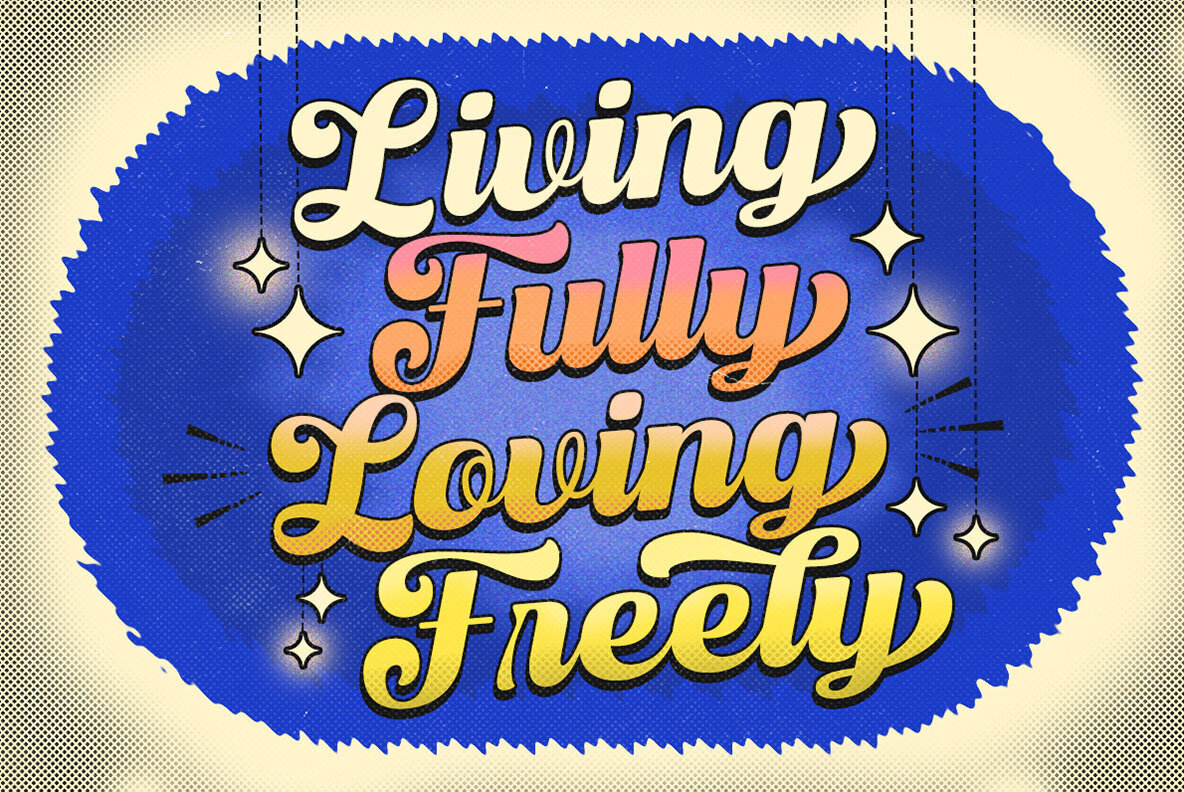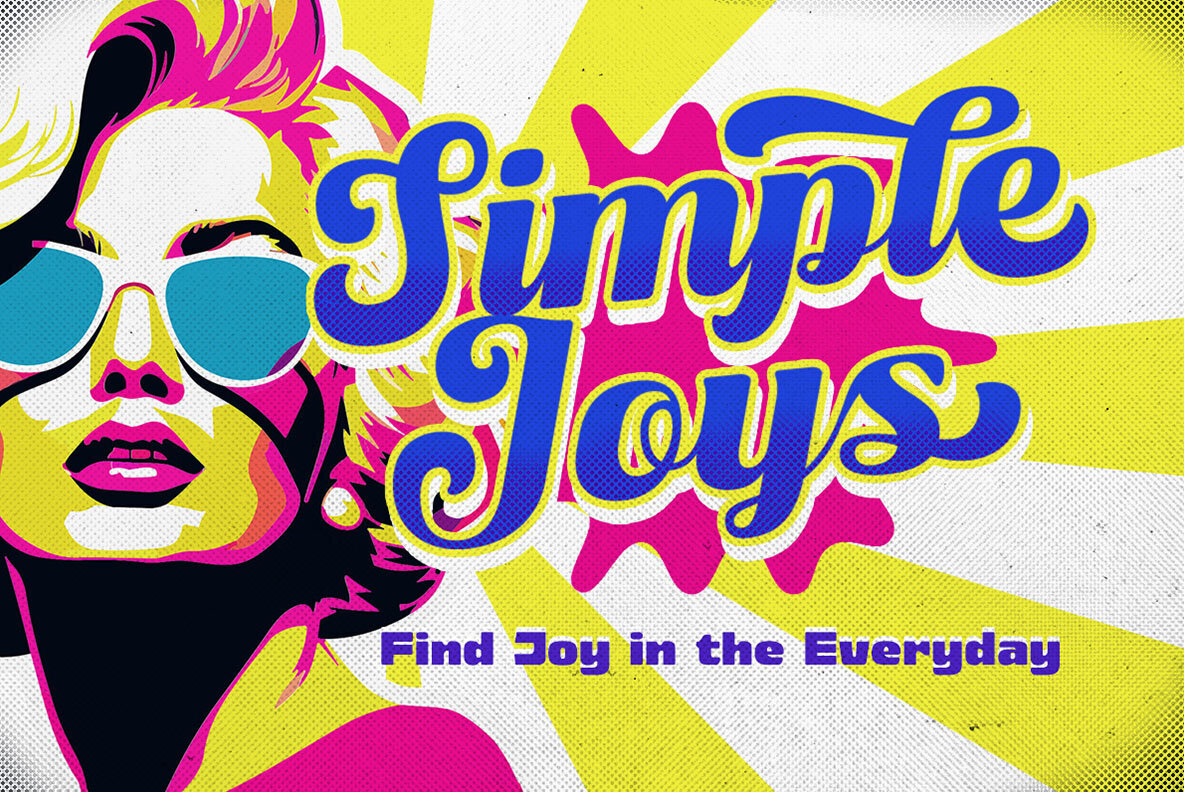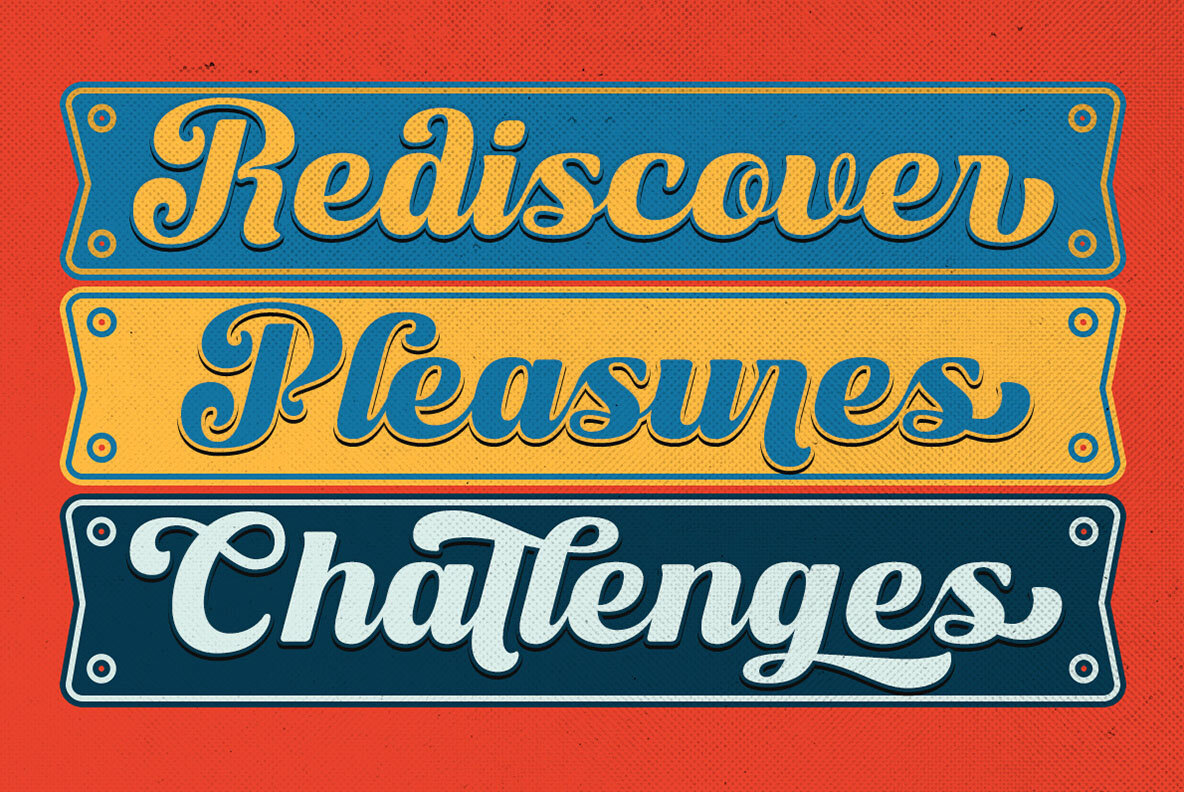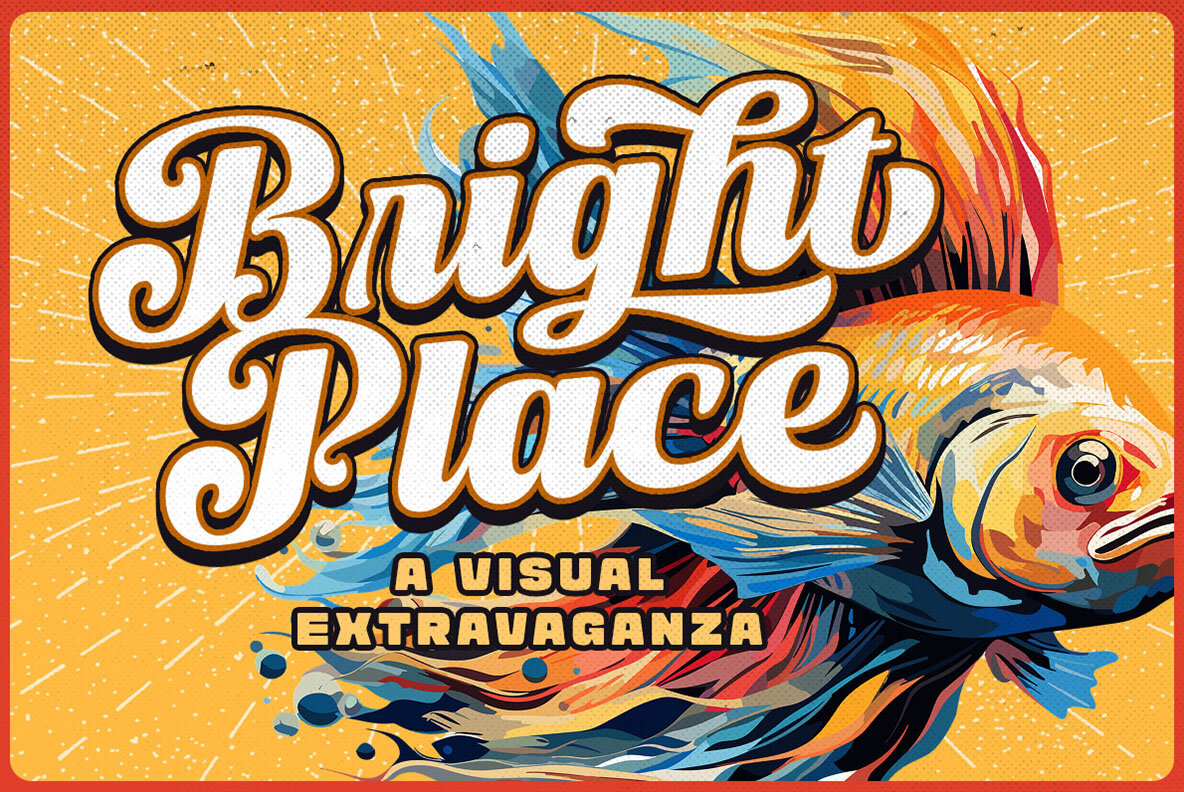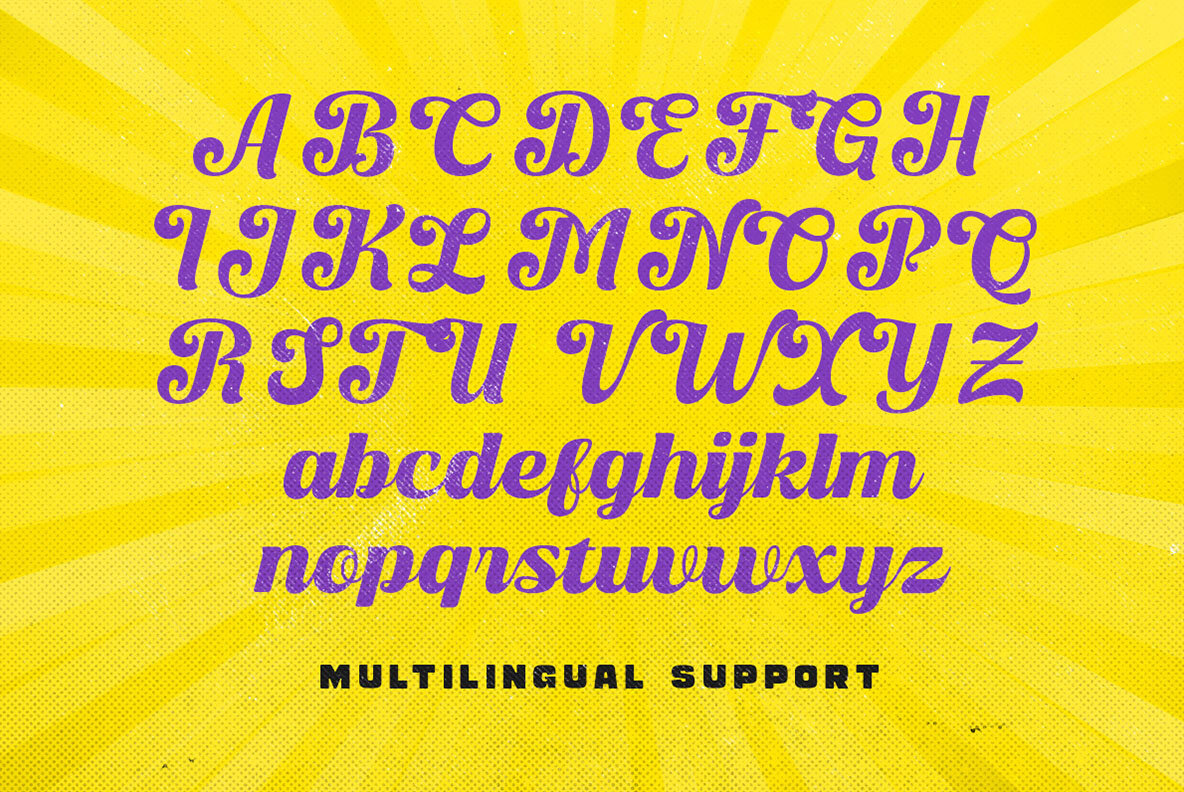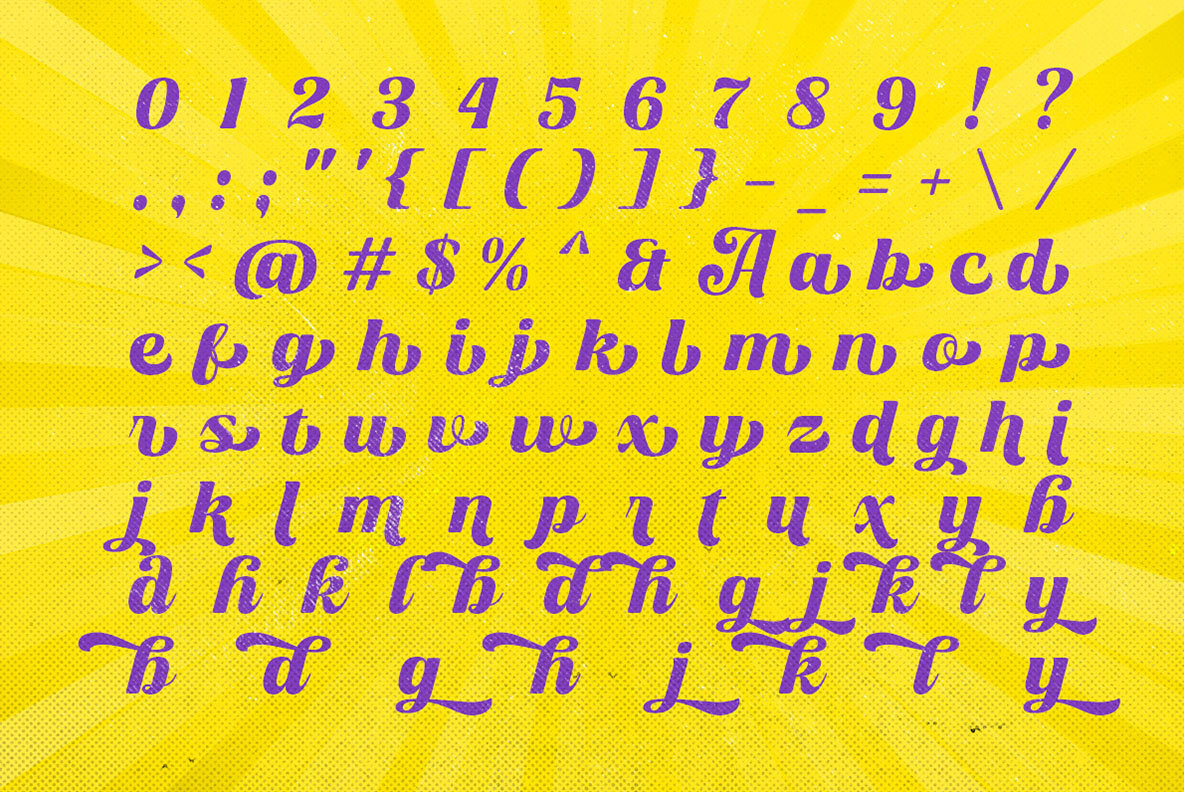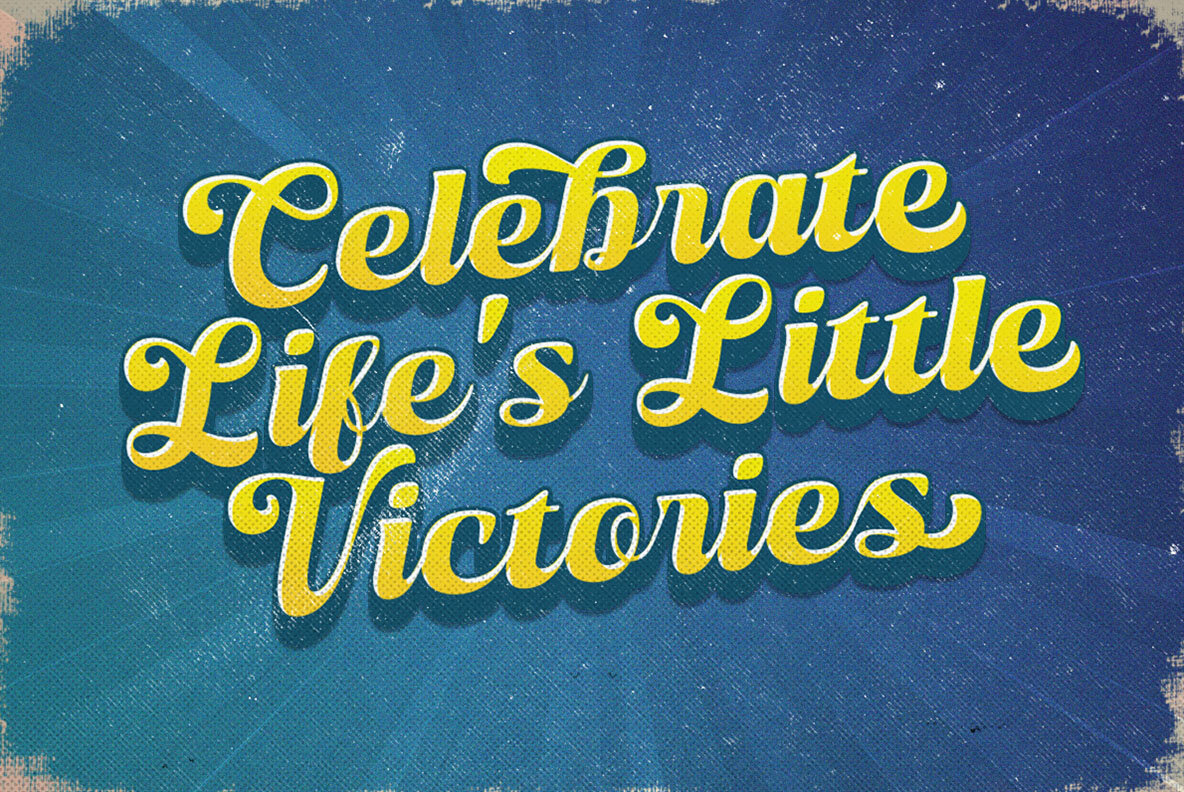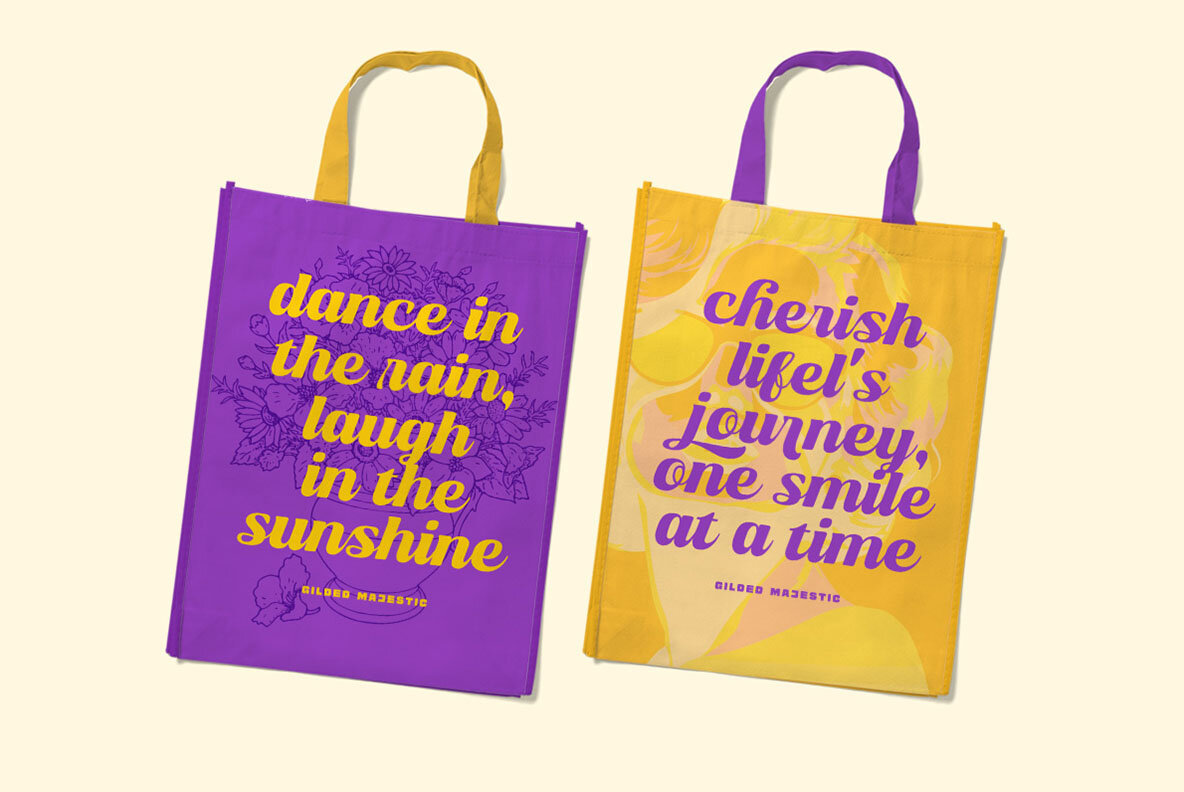
Gilded Majestic Font
Gilded Majestic Script
Gilded Majestic is a high-contrast bold script that exudes a touch of quirky elegance. This font is ideally suited for logos, headlines, and various formal applications, including invitations, labels, magazines, books, greeting and wedding cards, packaging, fashion, makeup, stationery, novels, and advertising. We recommend using programs that support OpenType features and Glyphs panels, such as Adobe applications and Corel Draw, to access all Glyph variations.Gilded Majestic: Bold Script with Quirky Flair